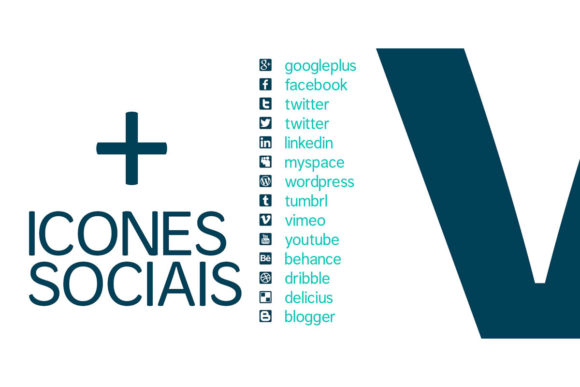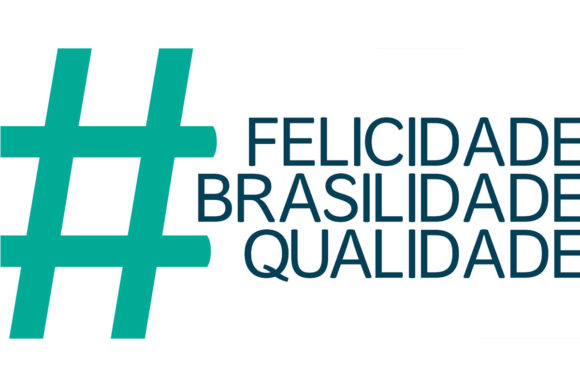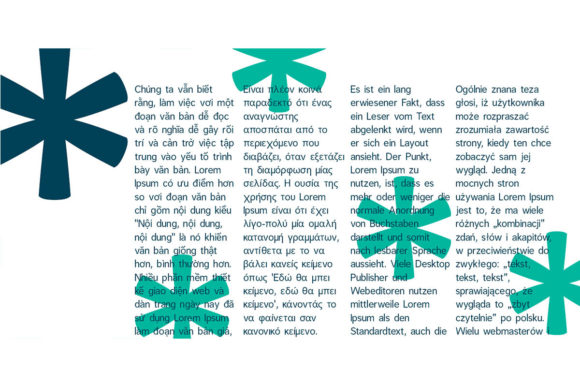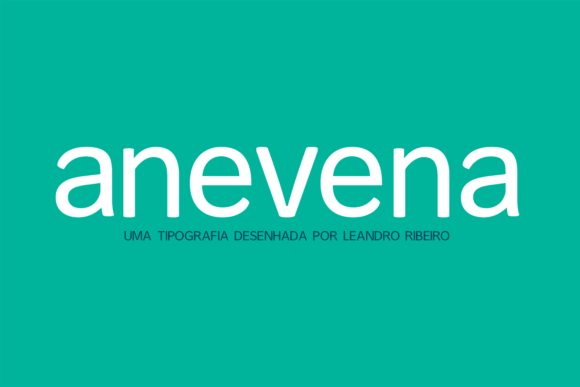
The Perfect Typographic Partner for Your Creative Projects
As a designer, have you ever found yourself staring at a blank page, waiting for the perfect font to bring your vision to life? It’s that moment of creative frustration when the right typeface can make all the difference. Enter the Anevena Font, a cool and adaptable sans serif font designed to elevate your work from ordinary to extraordinary.
This versatile font is perfect for a wide range of applications, from book texts and documentation to business reports and corporate design. Its clean lines and modern aesthetic make it an ideal choice for designers looking to create professional-looking materials without sacrificing style. With the Anevena Font, you’ll be able to convey your message with clarity and sophistication, making it a valuable addition to any designer’s toolkit.
Anevena Font Key Features
- Font Size: 5,000+ glyphs, making it a comprehensive and versatile font
- Resolution: Supports high-resolution displays with clear and crisp text rendering
- Language Support: Covers multiple languages, including Latin, Cyrillic, and Greek scripts
- Unique Characteristics: Anevena Font features a unique blend of modern and elegant design elements, making it suitable for a wide range of applications, from corporate branding to creative projects
- Font Style: Available in regular, bold, italic, and bold-italic styles, offering flexibility for different design needs
Anevena Font Review
Overall, I found the Anevena Font to be a unique and interesting addition to any design project. There are several aspects that truly stand out.
- ✨ Elegant and sophisticated design aesthetic: The Anevena Font features a beautiful, flowing design that adds a touch of luxury to any text.
- ✨ Wide range of applications: The font is highly versatile and can be used for a variety of purposes, from headings to body text.
- ✨ Excellent legibility: The font is easy to read, even at smaller font sizes, making it a great choice for digital applications.
However, there are a few limitations to consider.
- ⚠️ Limited font size range: While the font is legible at smaller sizes, it may become too thin and difficult to read at very small sizes (e.g. below 12pt).
- ⚠️ May not be suitable for bold or italic text: The font’s design may not translate well to bold or italic versions, which could affect its overall impact.
Overall, I would recommend the Anevena Font for projects where a sophisticated, elegant look is desired. While it may have some limitations, its unique design and versatility make it a great choice for designers looking to add a touch of luxury to their work.
The Anevena font is ideal for:
Business cards and branding materials
Magazine and book covers
Wedding and event signage
Tips for Getting the Most Out of Anevena Font
1. Pair the Anevena font with other elegant fonts for a sophisticated look.
2. Experiment with different font sizes and colors to add visual interest.
3. Use the Anevena font for headings and titles to create a clear hierarchy of information